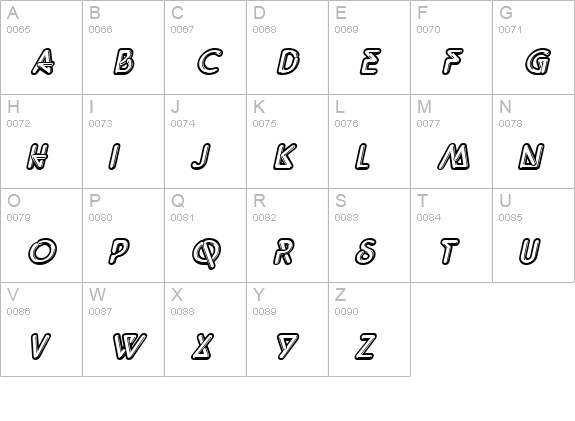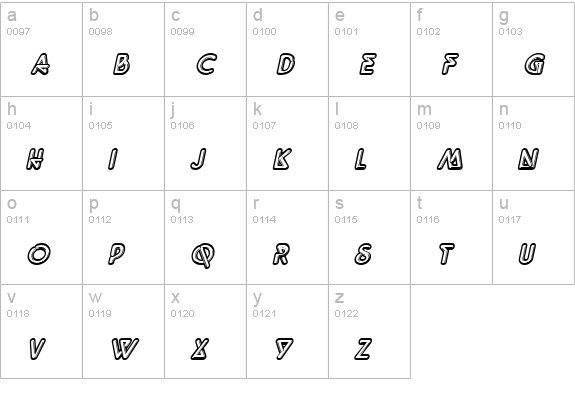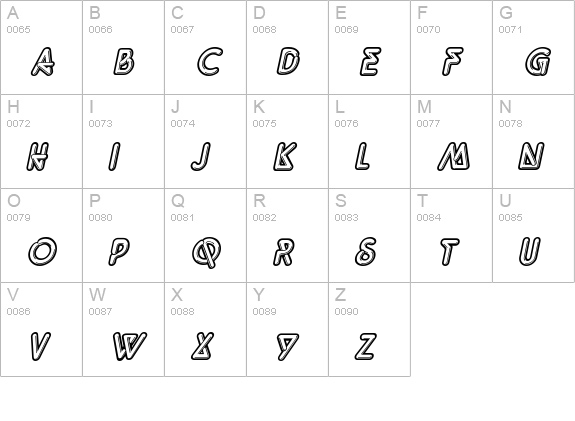
Neonz Italic is a distinctive, italic variant in the Neonz typeface family \xE2\x80\x94 well suited to design and typography projects.
Neonz Italic is a stunning and modern font that exudes a sense of energy and sophistication. The sleek, italic design of Neonz gives a contemporary twist to any project, making it perfect for headings, logos, posters, and more. With its vibrant neon-like appearance, Neonz Italic is sure to captivate attention and leave a lasting impression. Best of all, Neonz Italic is available for free download at FontsMarket.com. This means you can easily add this eye-catching font to your collection without any cost. So why wait? Elevate your designs with Neonz Italic today and watch them shine like never before.